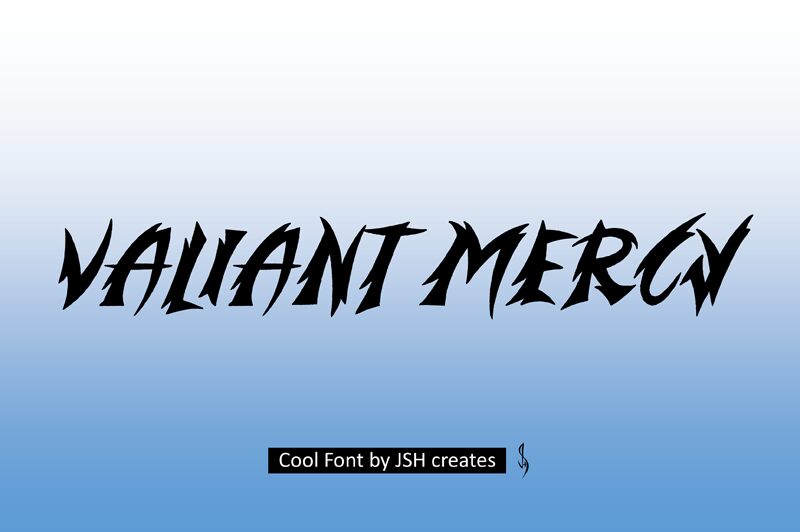
Valiant Mercy font by JSH creates is a modern gothic typeface with bold, dynamic, angular strokes. Its brush-like design exudes high contrast and feels energetic, aggressive and edgy, making every letter seem alive. The font’s expressive nature captures a unique spirit that draws attention effortlessly.
Valiant Mercy font is perfect for everything from event posters to eye-catching websites or stunning logos – anything where you want standout text really!